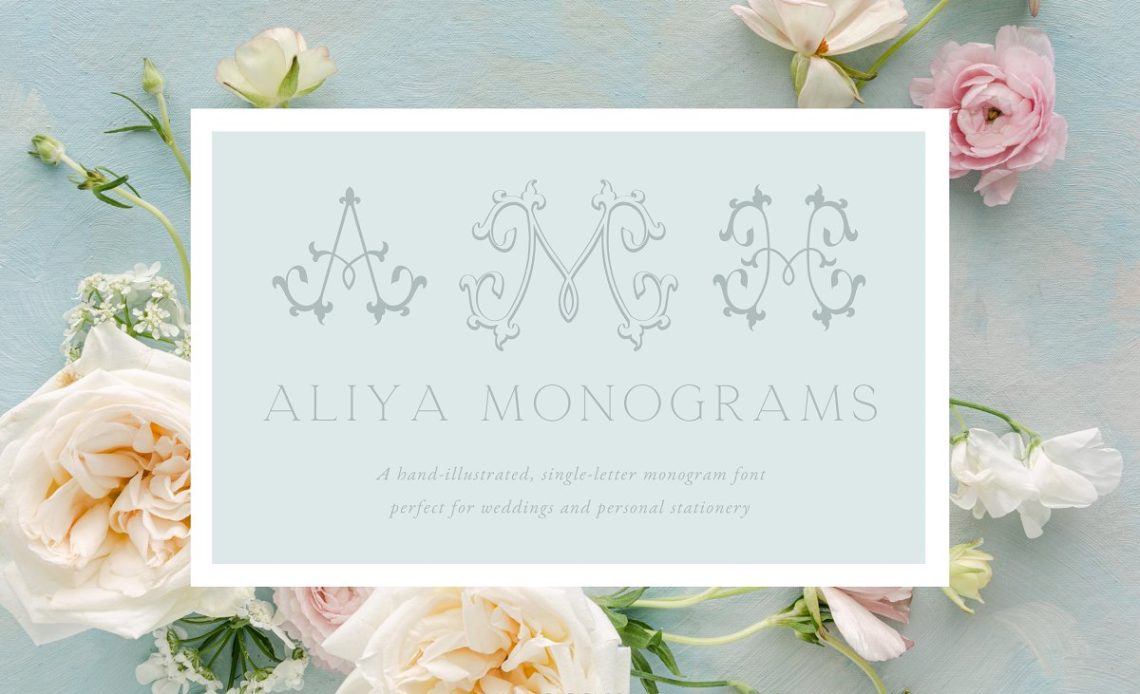
Introducing Aliya Monogram Font, the best font for wedding invitations and monogram designs! Created by Loren Schmidt, this font family features elegant vintage style single monograms in two different styles that are sure to elevate the look of any design.
Aliya Monograms includes two .otf fonts, a solid and engraved outline, providing you with the flexibility to customize your designs with ease. This versatile font is perfect for creating personalized wedding invitations, monogrammed stationery, and other unique designs that require a touch of sophistication.
One of the standout features of Aliya Monogram Font is its single-letter monogram designs that exude elegance and style. Whether you are looking to create a timeless wedding invitation or add a touch of class to your personal branding, this font family is the perfect choice.
Overall, Aliya Monogram Font is the ideal choice for anyone looking to add a touch of sophistication and style to their designs. Whether you are a professional designer or someone looking to create personalized invitations or stationery, this font family is sure to impress.